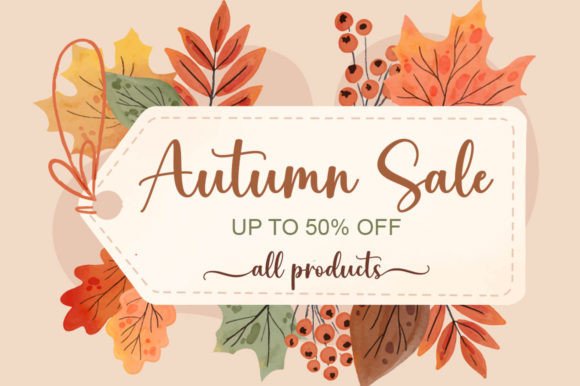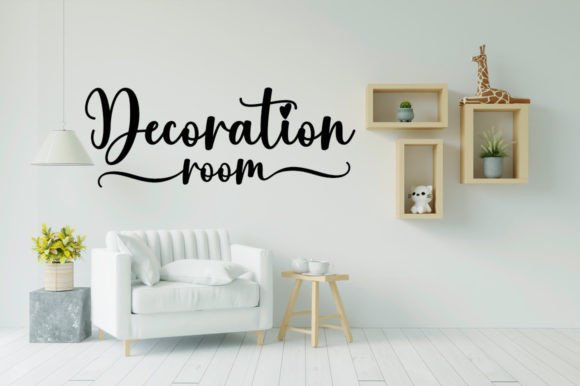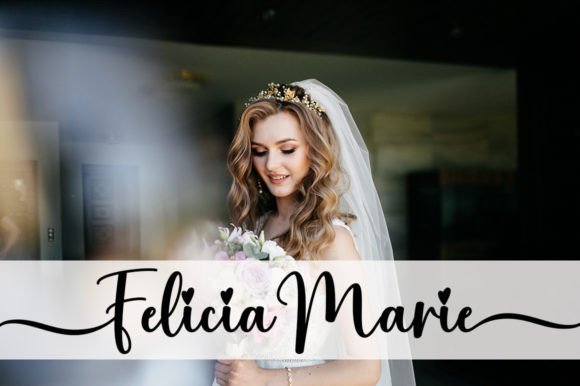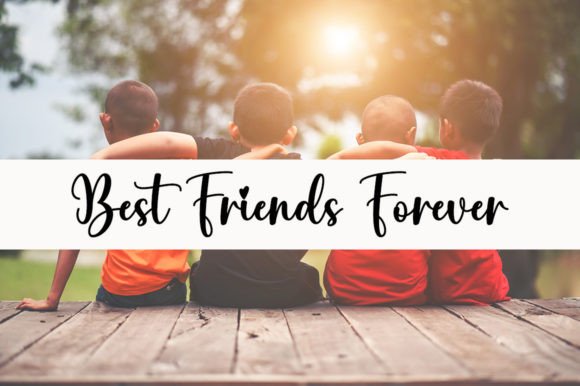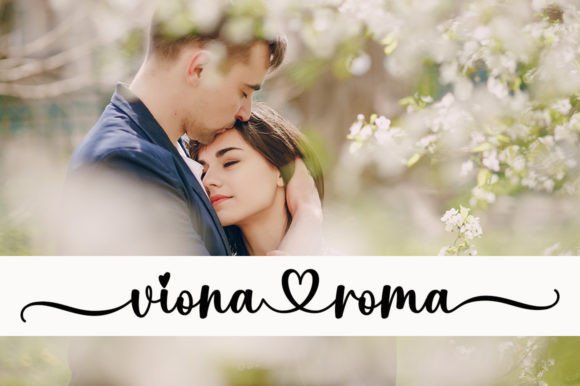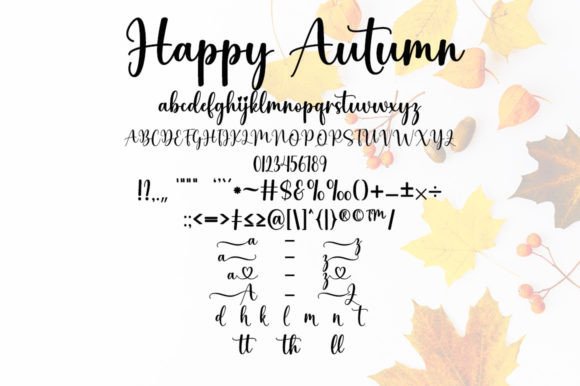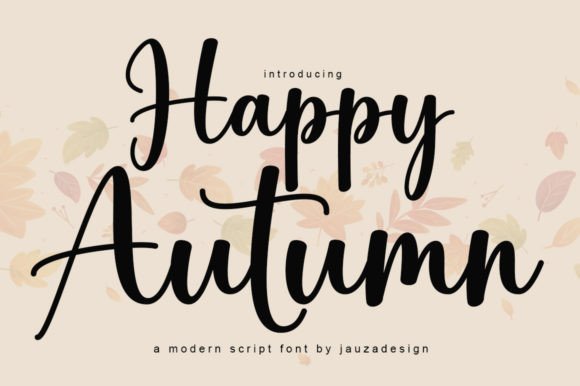
Introducing Happy Autumn Font: Elevate Your Designs with a Lovely Script Font
As the seasons change and autumn arrives, designers and crafters are on the lookout for fresh inspiration and new fonts to add a touch of warmth and coziness to their creations. If you’re searching for a font that embodies the spirit of the season, look no further than Happy Autumn Font. This lovely and delicate script font is sure to become a favorite in your collection, and we’re excited to dive into its features and benefits.
What is Happy Autumn Font?
Happy Autumn Font is a beautiful script font that exudes elegance and sophistication. Its delicate strokes and flowing curves make it perfect for a wide range of design projects, from autumn-themed crafts and seasonal cards to branding and advertising materials. The font’s charming and whimsical feel is sure to capture the hearts of designers and crafters alike.
One of the standout features of Happy Autumn Font is its PUA (Private Use Area) encoding. This means that you can access all of the font’s amazing glyphs and ligatures with ease, giving you even more creative possibilities. With PUA encoding, you can unlock the full potential of the font and add unique touches to your designs. Whether you’re a seasoned designer or a crafting enthusiast, this feature makes it easy to get the most out of Happy Autumn Font.
Key Features of Happy Autumn Font
• Lovely and delicate script font: Perfect for adding a touch of elegance and sophistication to your designs.
• PUA encoded: Easy access to all glyphs and ligatures for added creative possibilities.
• Wide range of uses: Suitable for autumn-themed crafts, seasonal cards, branding, advertising, and more.
• Charming and whimsical feel: Captures the spirit of the autumn season and adds a touch of warmth to your designs.
How to Use Happy Autumn Font in Your Designs
Happy Autumn Font is incredibly versatile and can be used in a variety of design projects. Here are a few ideas to get you started:
• Autumn-themed crafts: Add a touch of warmth and coziness to your crafts, such as paper crafts, woodwork, or sewing projects.
• Seasonal cards and invitations: Create beautiful and unique cards and invitations for autumn celebrations, such as Thanksgiving or Halloween.
• Branding and advertising: Use Happy Autumn Font to add a touch of elegance and sophistication to your branding and advertising materials, such as logos, brochures, or social media graphics.
• Digital art and illustrations: Incorporate Happy Autumn Font into your digital art and illustrations, such as watercolor or hand-drawn designs.
Tips and Tricks for Getting the Most Out of Happy Autumn Font
To make the most of Happy Autumn Font, here are a few tips and tricks to keep in mind:
• Experiment with different colors and textures: Add depth and interest to your designs by experimenting with different colors and textures.
• Mix and match with other fonts: Combine Happy Autumn Font with other fonts to create unique and interesting typography.
• Play with glyphs and ligatures: Use the font’s PUA encoding to access all of the glyphs and ligatures and add a touch of whimsy to your designs.
Happy Autumn Font is a lovely and delicate script font that’s sure to become a favorite in your collection. With its PUA encoding, charming and whimsical feel, and wide range of uses, it’s the perfect addition to any design project. Whether you’re a designer, crafter, or simply someone who loves the autumn season, Happy Autumn Font is a must-have. So why wait? Download Happy Autumn Font today and let yourself be amazed by the outcome!